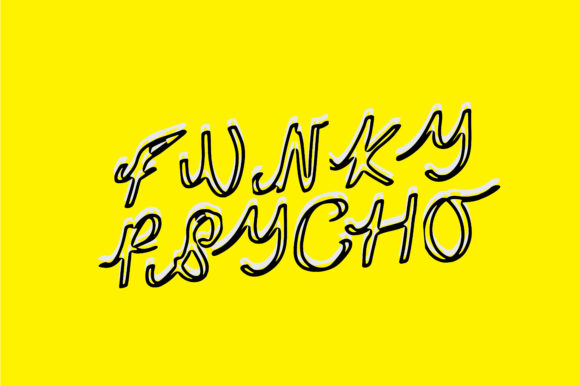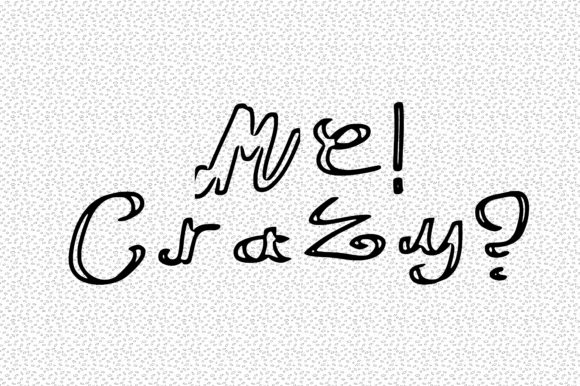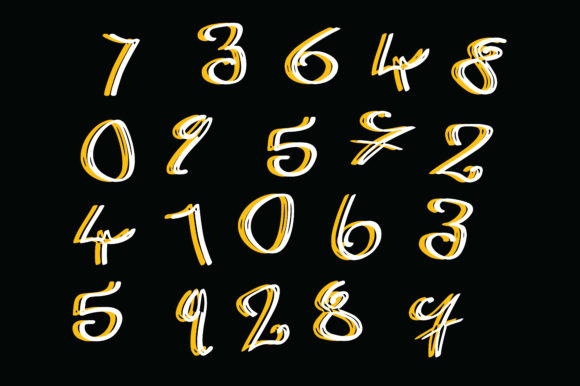
Funky Psycho Font
About Funky Psycho Font
Funky Psycho is an outlined handwritten font that undoubtedly will add a kooky and weird touch to any design project.